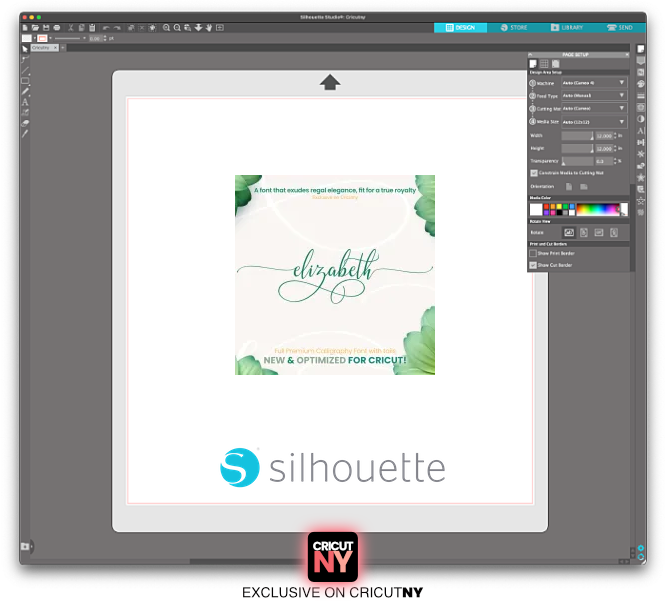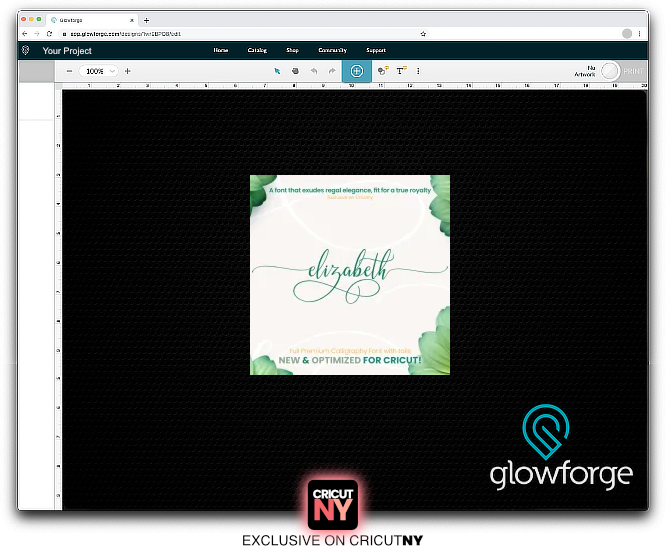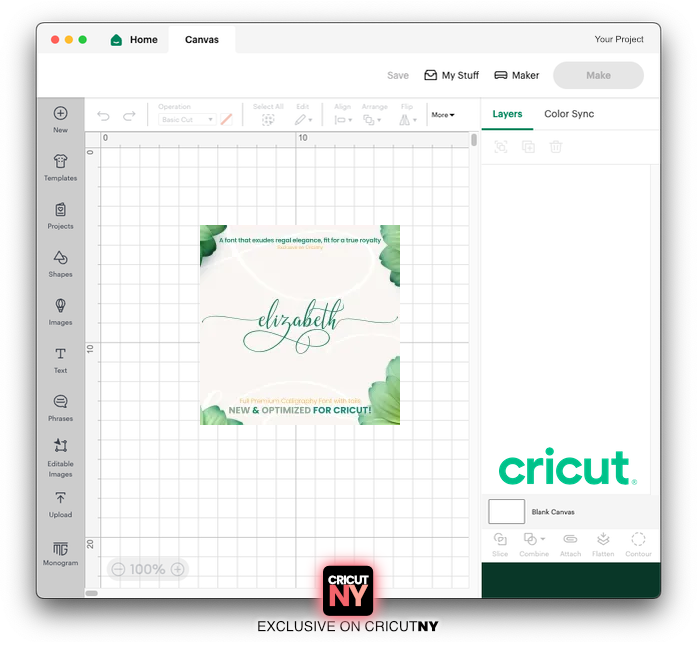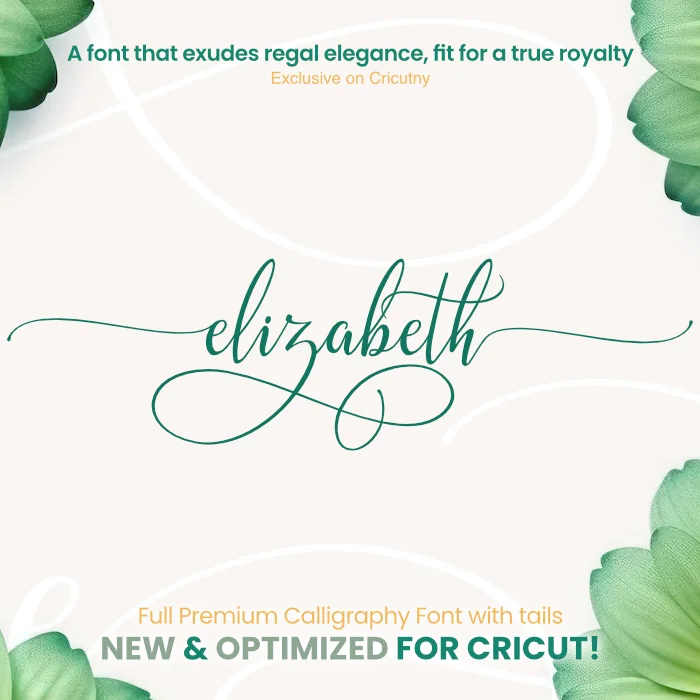
Elizabeth, A Calligraphy Font with Multiple Tails
Introducing “Elizabeth”. This exquisite font boasts multiple tail letters, making it the perfect choice for any project that requires a feminine and romantic touch. Whether it’s a wedding invitation or a special event, Elizabeth has enough tail letters to create countless projects. What’s more, it’s part of the Optimized font project, which means you can use it without any third-party font manager. With just one click, you can display any of the special characters, including the long and beautiful tail letters. Don’t settle for ordinary fonts – choose the Elizabeth premium font and add a touch of elegance to your project.
Take a moment to marvel at the exquisite tail letters. They possess an undeniable beauty that is truly captivating.
AVAILABLE SWIRL TAIL LETTERS – PART 1
AVAILABLE SWIRL TAIL LETTERS – PART 2
AVAILABLE SWIRL TAIL LETTERS – PART 3
AVAILABLE SWIRL TAIL LETTERS – PART 4
AVAILABLE SWIRL TAIL LETTERS – PART 5
LEFT TAIL LETTERS
RIGHT TAIL LETTERS
I HAVE CREATED A FEW MORE LETTERS WITH CURLY TAILS AS A BONUS